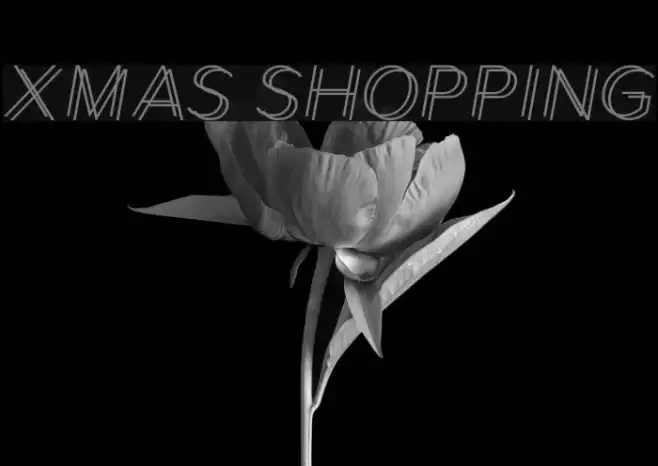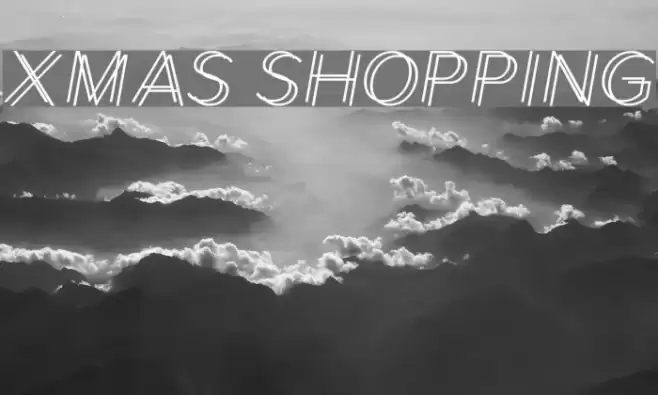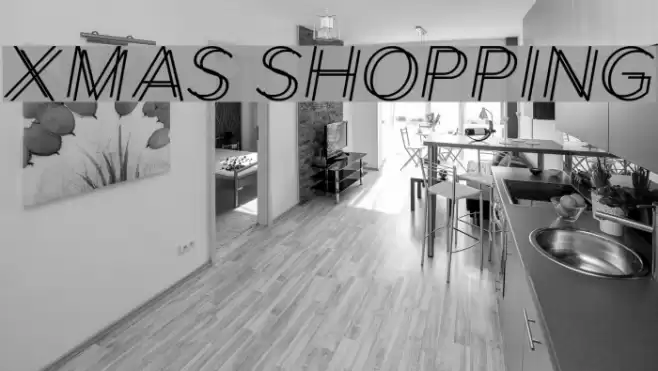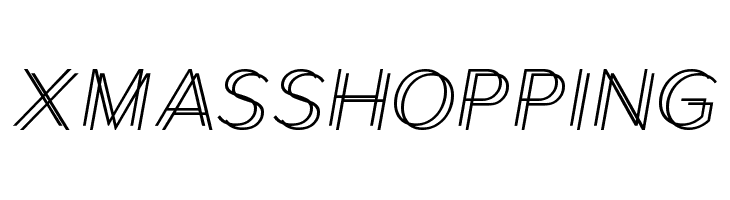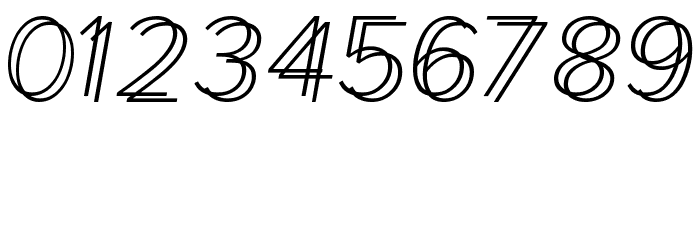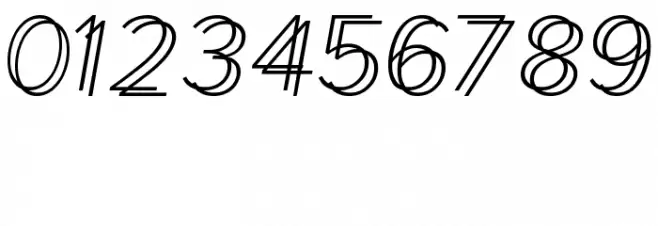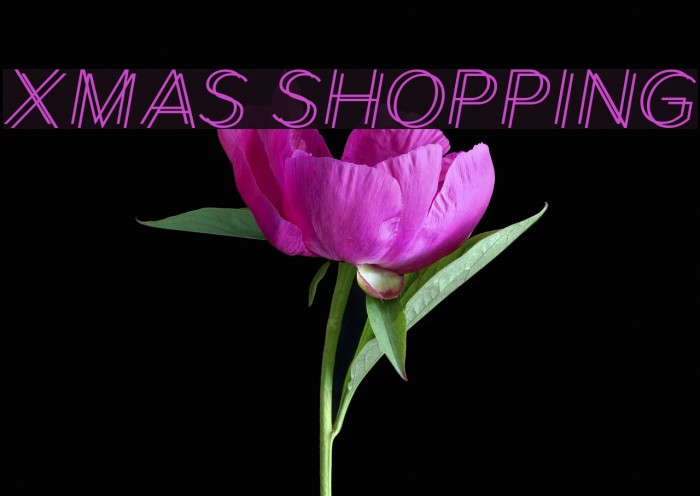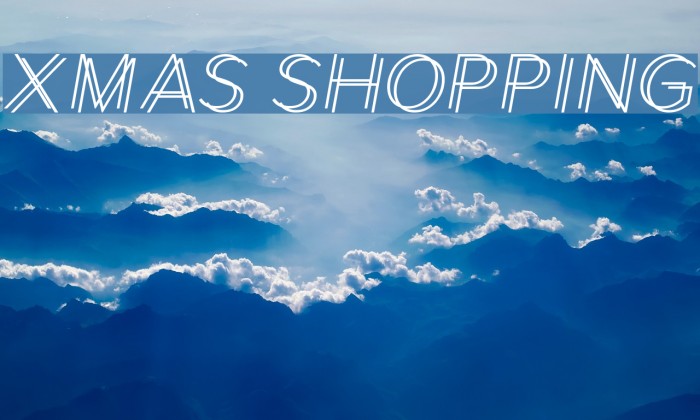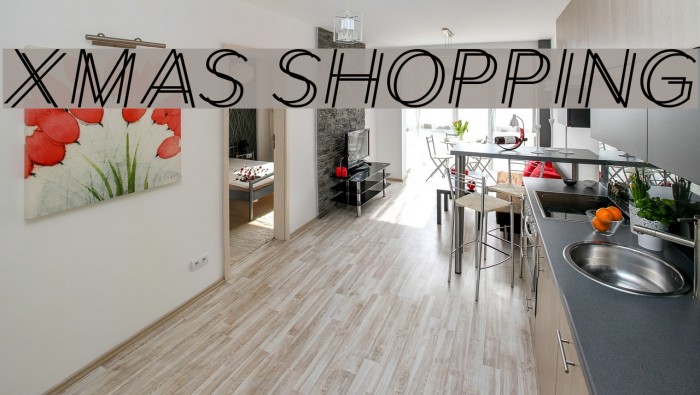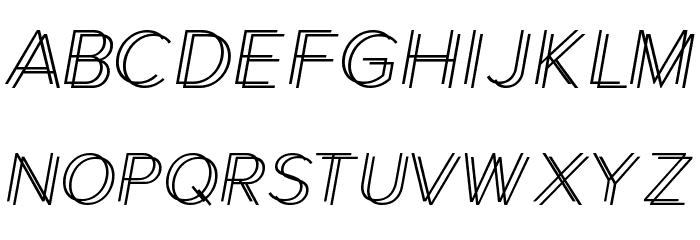
Xmas Shopping Font
Xmas Shopping Description
This font features a unique, modern design with a distinct double-line structure that gives it a dynamic and stylish appearance. Each character is crafted with precision, showcasing sharp angles and clean lines that create a sense of movement and energy. The uppercase and lowercase letters maintain a consistent style, while the numerals are bold and easily distinguishable. The font's geometric nature is balanced with a slight slant, adding a touch of elegance and sophistication. This makes it suitable for a variety of creative projects where a contemporary and eye-catching look is desired.
A modern, double-line font with a dynamic and stylish design from Uncategorized fonts.